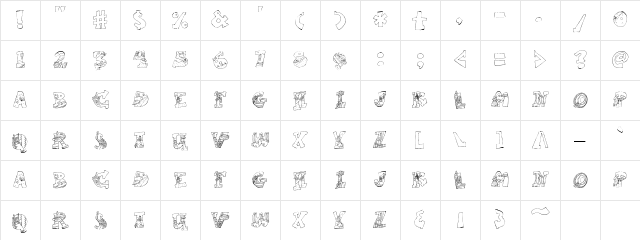
LD SiteSeeing Regular Free Font
LD SiteSeeing Regular
Design Context for LD SiteSeeing
LD SiteSeeing is a composed and adaptable typeface that performs quietly and consistently across a wide range of design contexts.